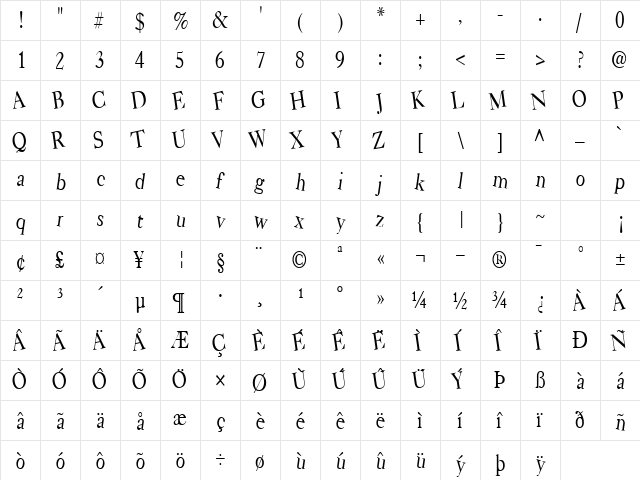
BearMarketGear7 Regular
Design Context for BearMarketGear7 Typeface
BearMarketGear7 takes a measured approach to typography — its balanced proportions and neutral character make it a reliable workhorse for both digital and print work.